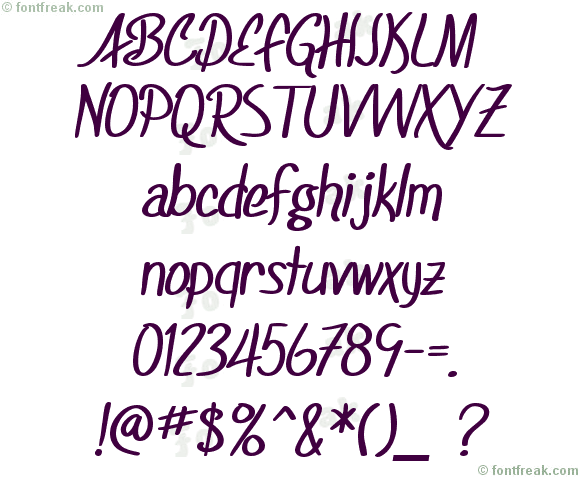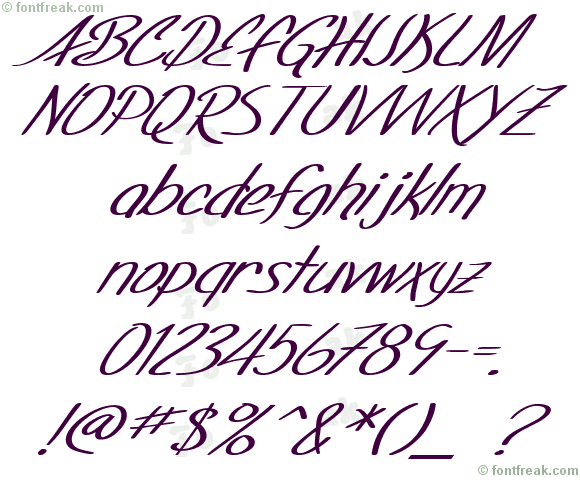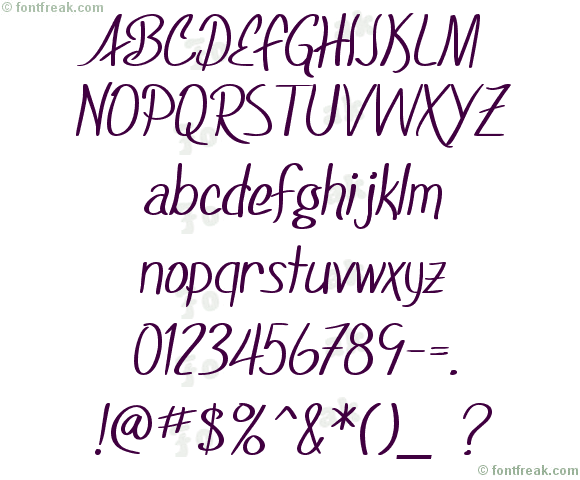
SF Foxboro Script Extended
SF Foxboro Script Italic
SF Foxboro Script
SF Foxboro Script Bold Italic
SF Foxboro Script Extended Bold Italic
SF Foxboro Script Bold
SF Foxboro Script Extended Bold
SF Foxboro Script Extended Italic
Foxboro Script is a stunning script font designed by Shyfonts Type Foundry, embodying elegance and sophistication. As a freeware typeface, it is perfect for those looking to enhance their design projects without worrying about licensing fees. The font features a fluid, handwritten style that conveys a sense of warmth and personalization. Its smooth curves and elegant strokes create a graceful aesthetic, making it an excellent choice for a variety of applications.
Visually, Foxboro Script showcases a moderate stroke weight with subtle contrasts that enhance its legibility. The letters are well-spaced, allowing for easy reading while maintaining a stylish flow. Decorative elements, such as elegant swashes and graceful loops, add a touch of flair, making the font visually captivating. This combination of simplicity and sophistication makes Foxboro Script a versatile choice for many design projects.
Ideal use cases for this font include wedding invitations, where its romantic flair can set the perfect tone, and restaurant menus, where it can elevate the dining experience with a touch of class. It also works beautifully on movie posters, lending a dramatic yet approachable quality to titles, and in branding for small businesses, where a personal touch is essential for connecting with customers. Graphic designers, small business owners, and content creators will find this font particularly appealing, as it helps convey distinctive brand identities.
What sets Foxboro Script apart is its ability to blend elegance with accessibility, making it suitable for both formal and informal contexts. This font not only enhances the visual appeal of your projects but also adds an inviting, personal touch that resonates with audiences. Don't miss out on the opportunity to elevate your designs with the Foxboro Script font free download, a perfect addition to any creative toolkit.